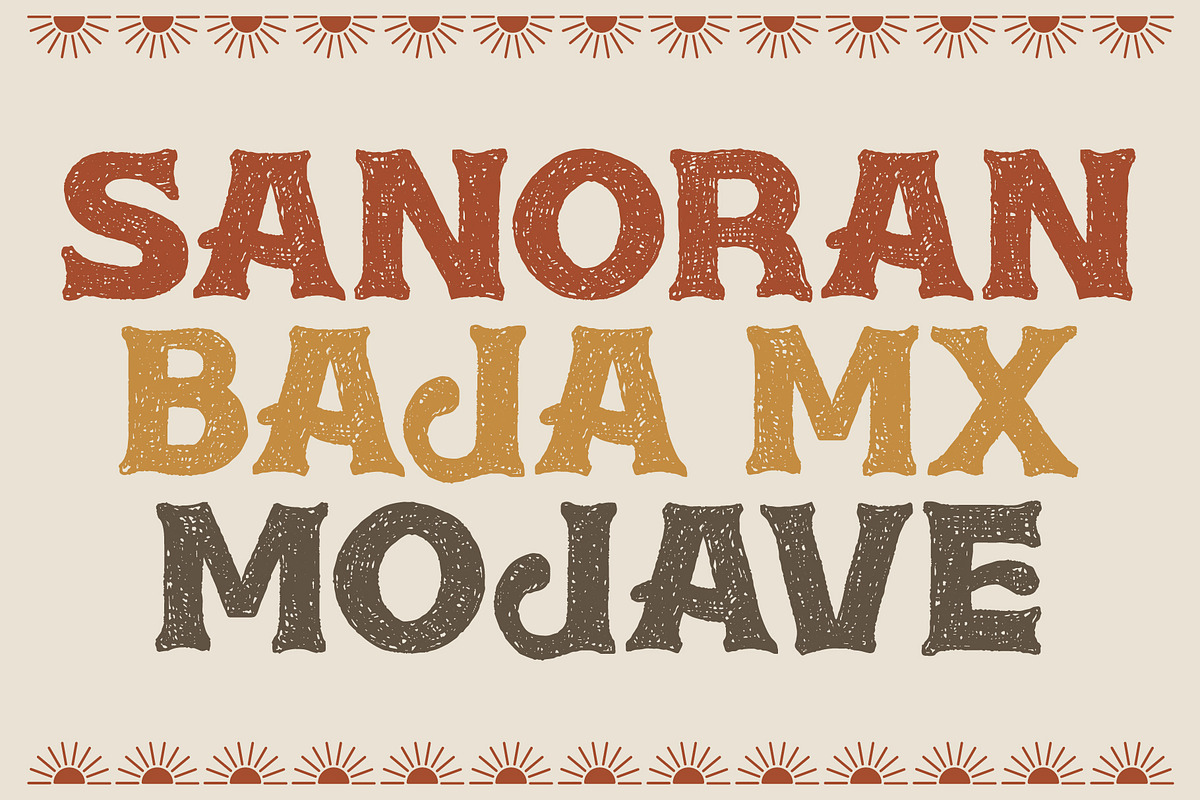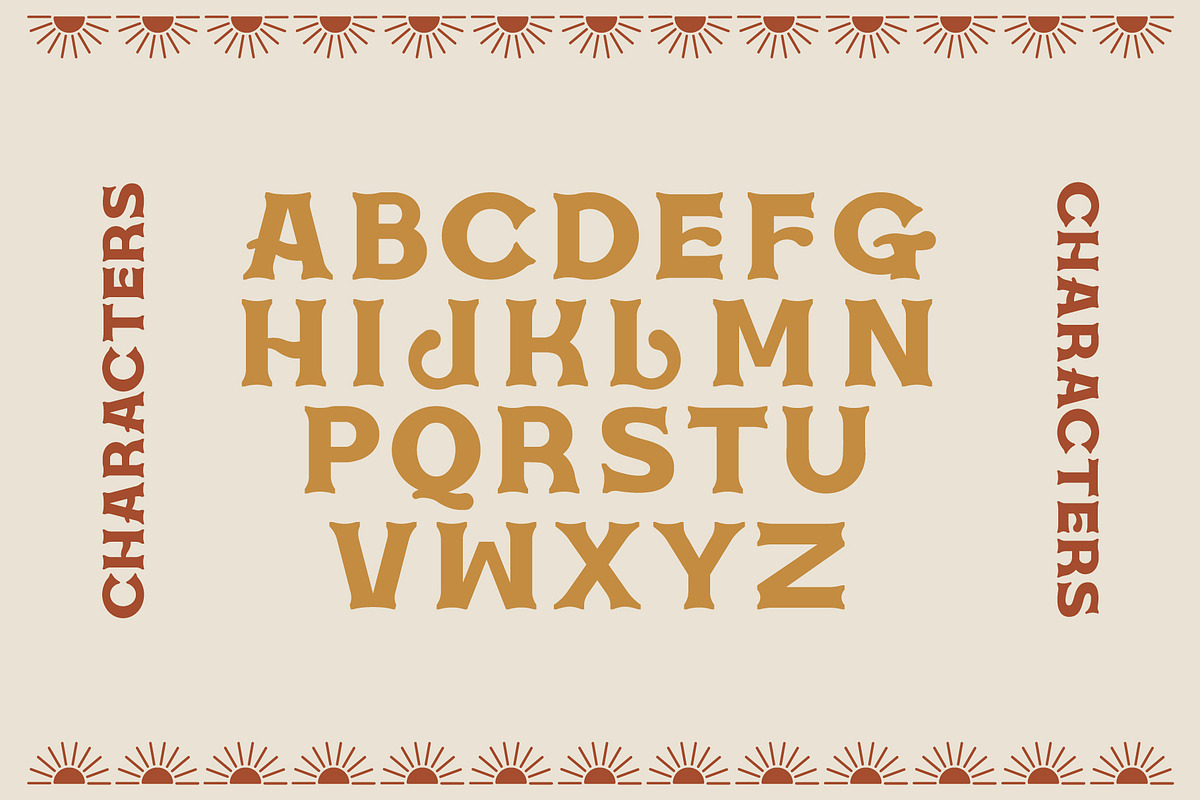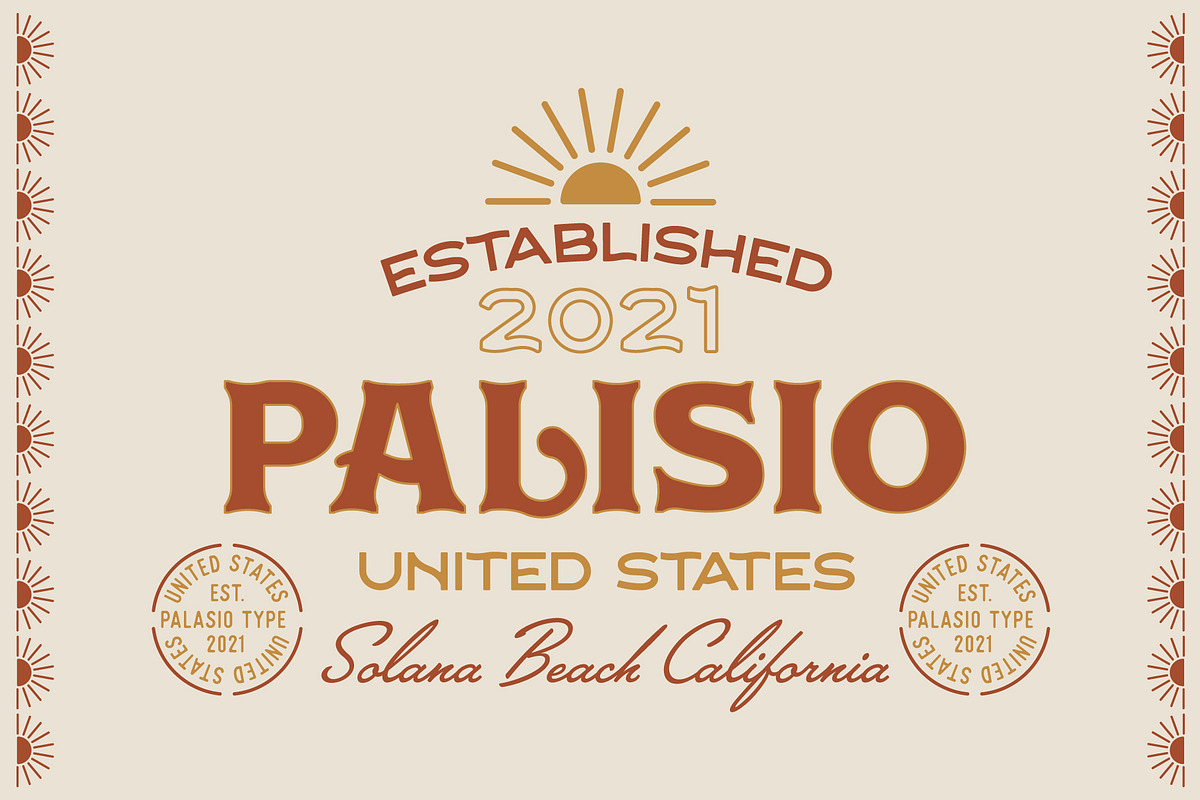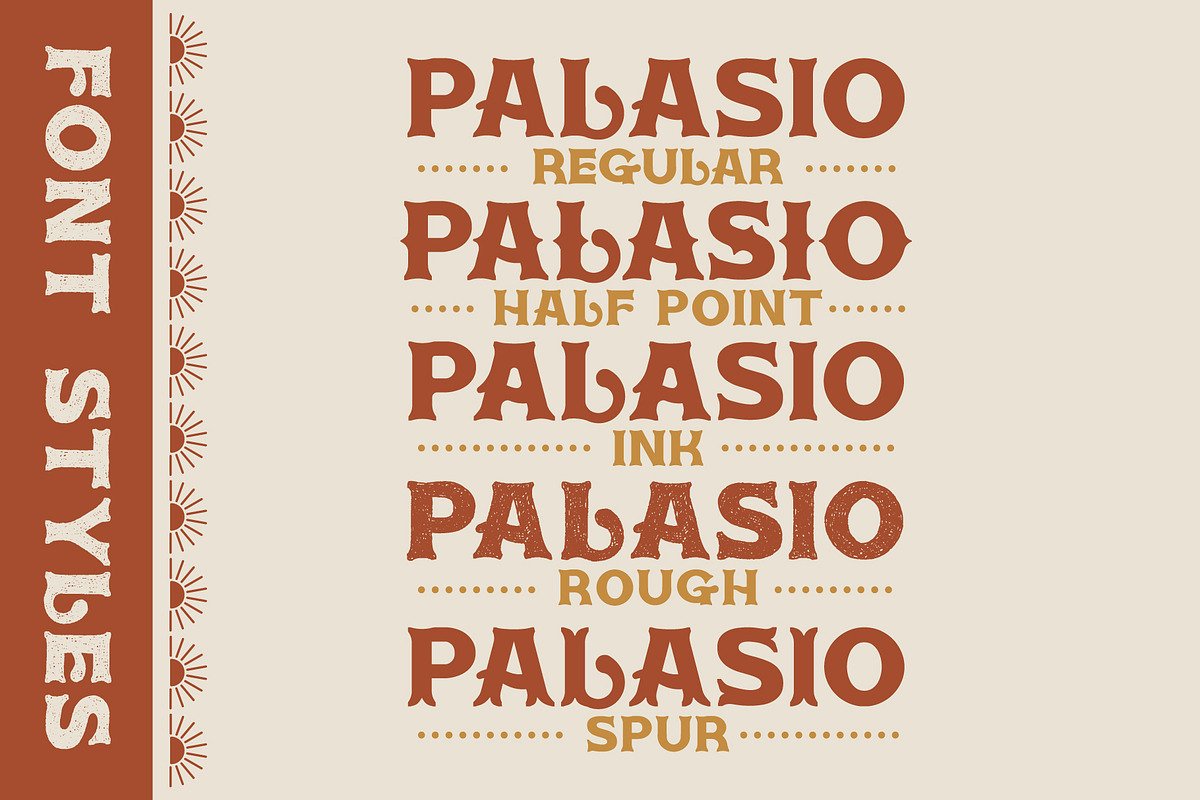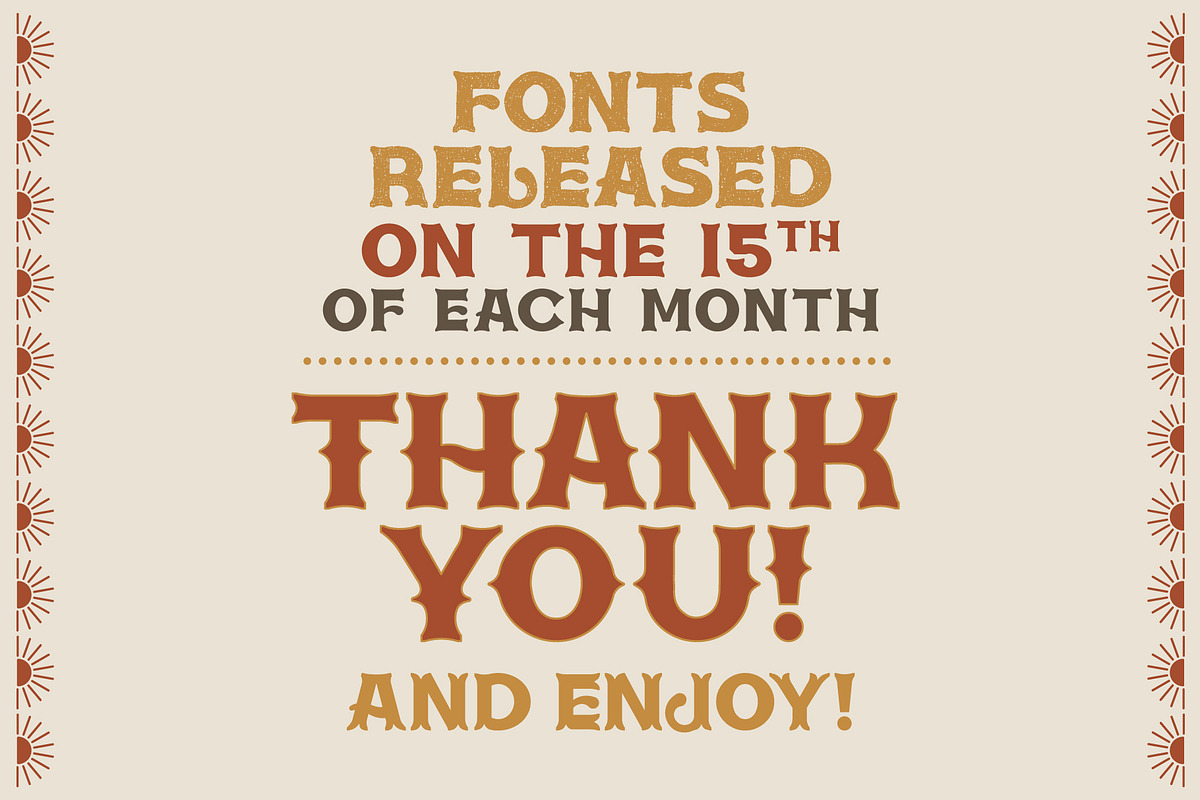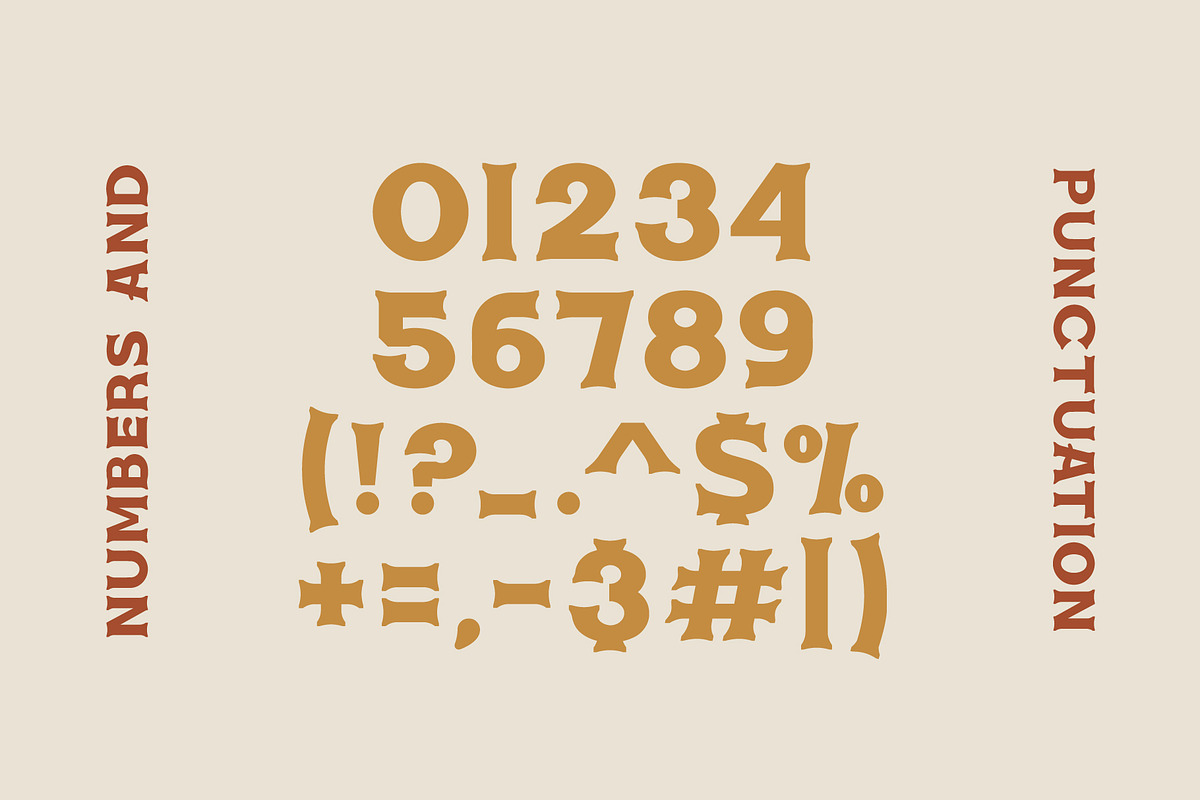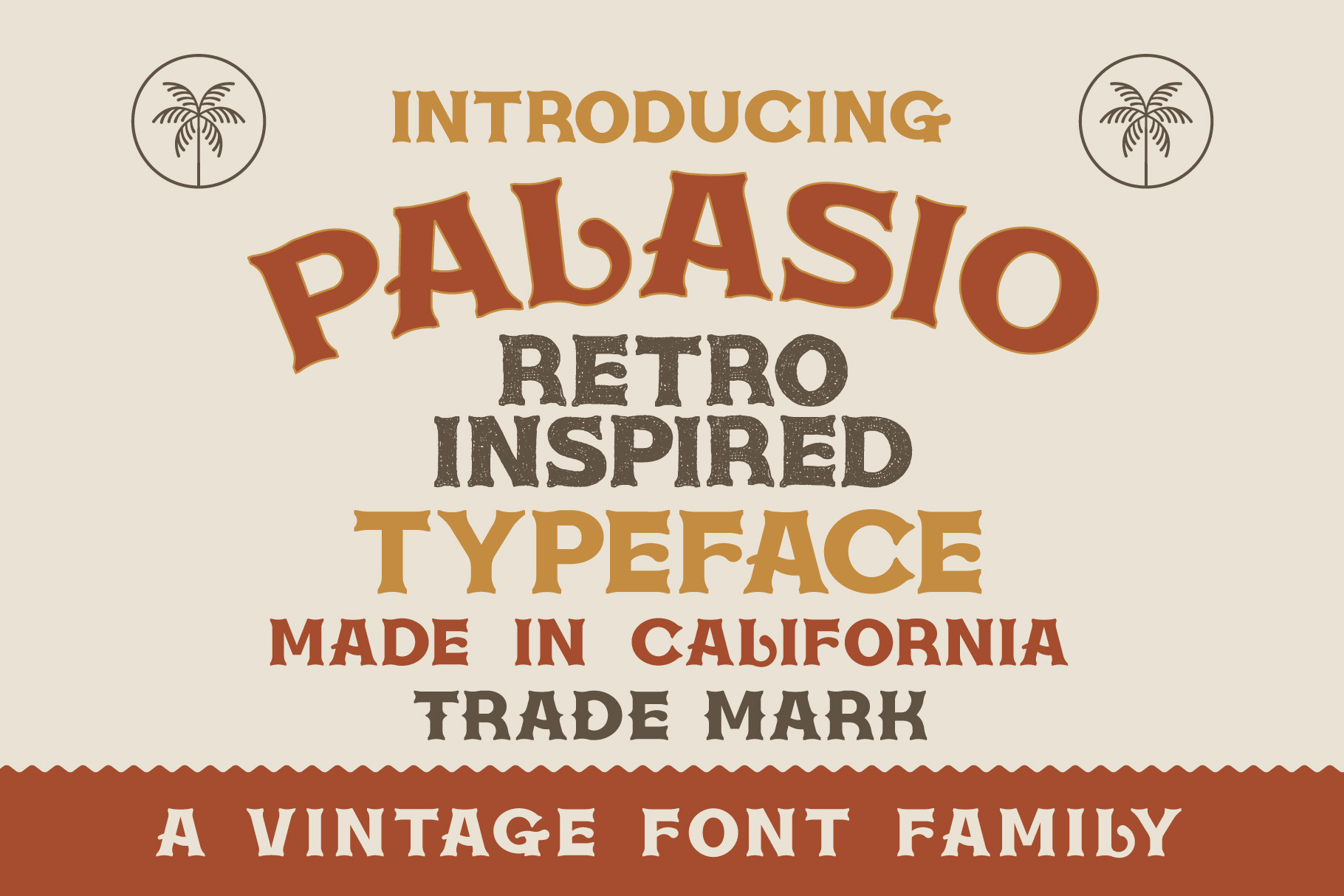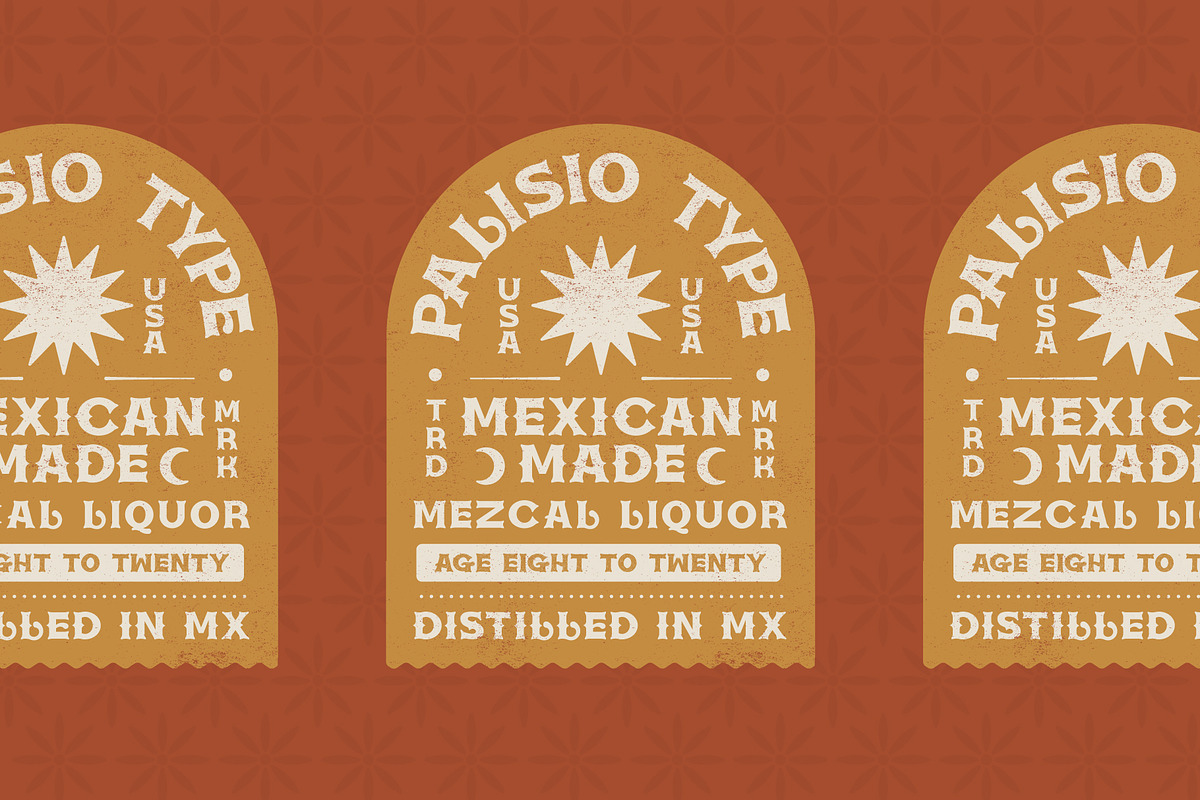
Palasio Typeface | Desert Font
Introducing the Palasio font family! Palasio is a vintage font inspired by the western desert towns of California, Arizona, and Mexico. Including a full set of characters and punctuation, Palasio comes in 5 type styles:
- Ink
- Spur
- Rough
- Half Point